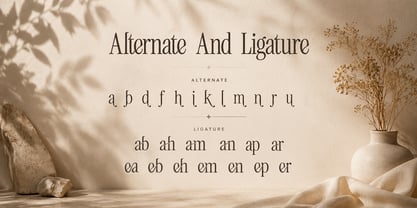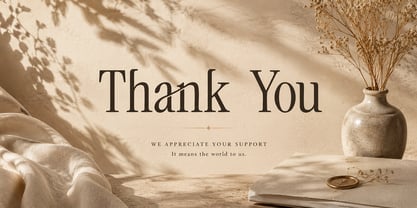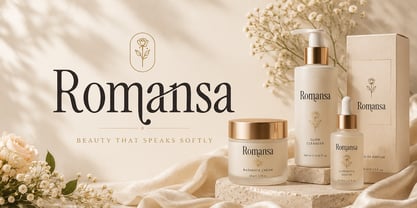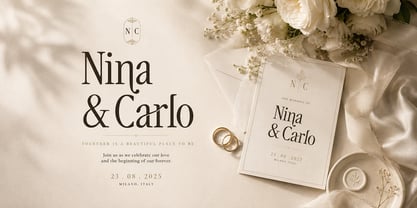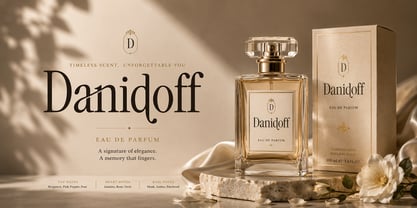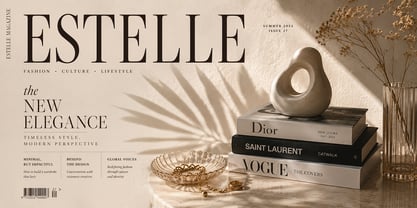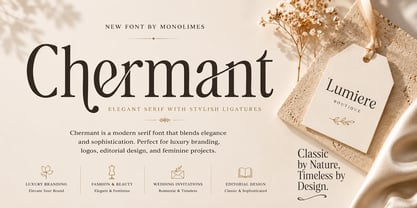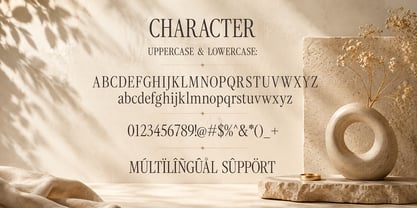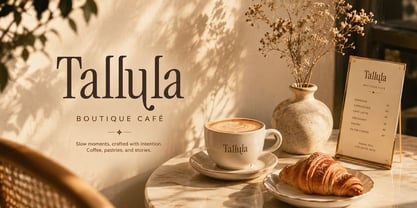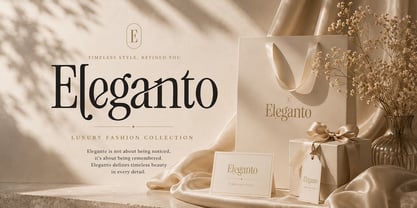
Chermant
von Monolimes
Die Schriftfamilie Chermant wurde von Brainy Javanika Putra entworfen und von Monolimes veröffentlicht. Chermant enthält 1 Stile. Mehr über diese Familie
Chermant — a graceful modern serif with flowing ligatures and elegant curves. Crafted for luxury branding, feminine logos, editorial headlines, wedding designs, beauty packaging, and sophisticated typography projects.
Its delicate strokes and artistic character details create a timeless, classy, and romantic impression while remaining highly readable and stylish.
Designer: Brainy Javanika Putra
Foundry: Monolimes